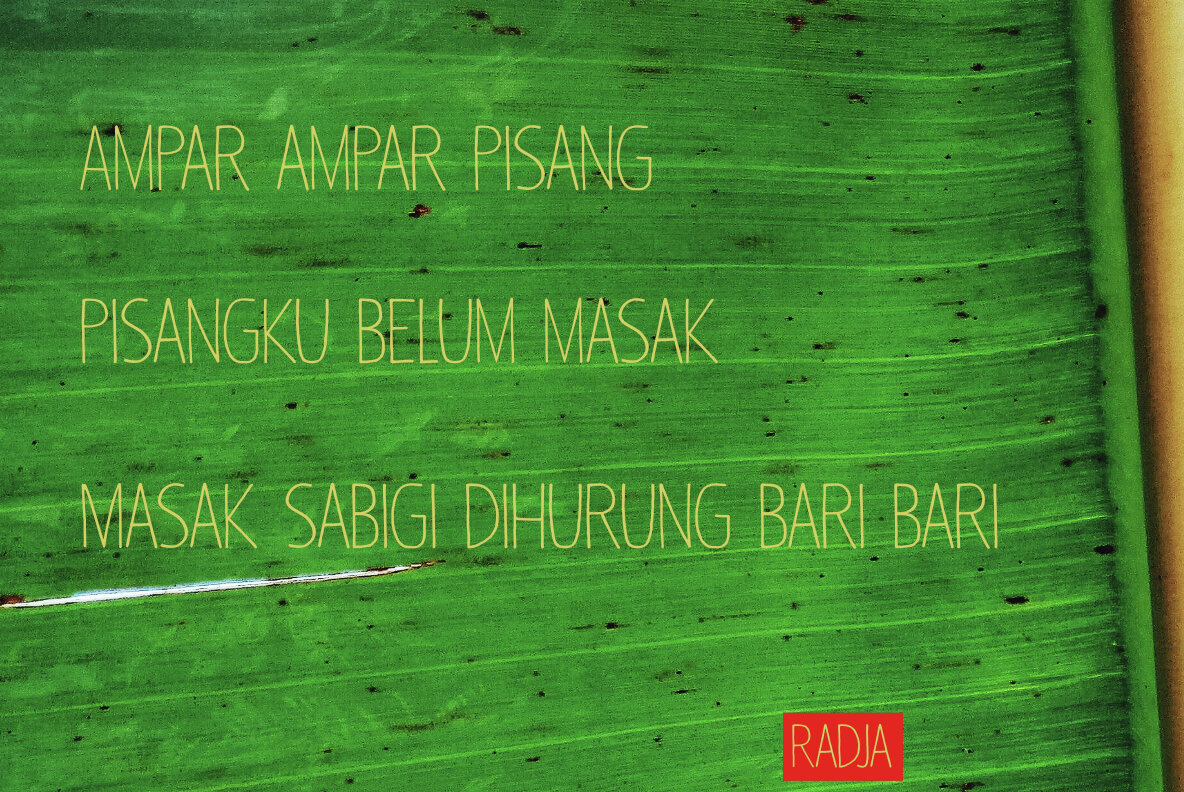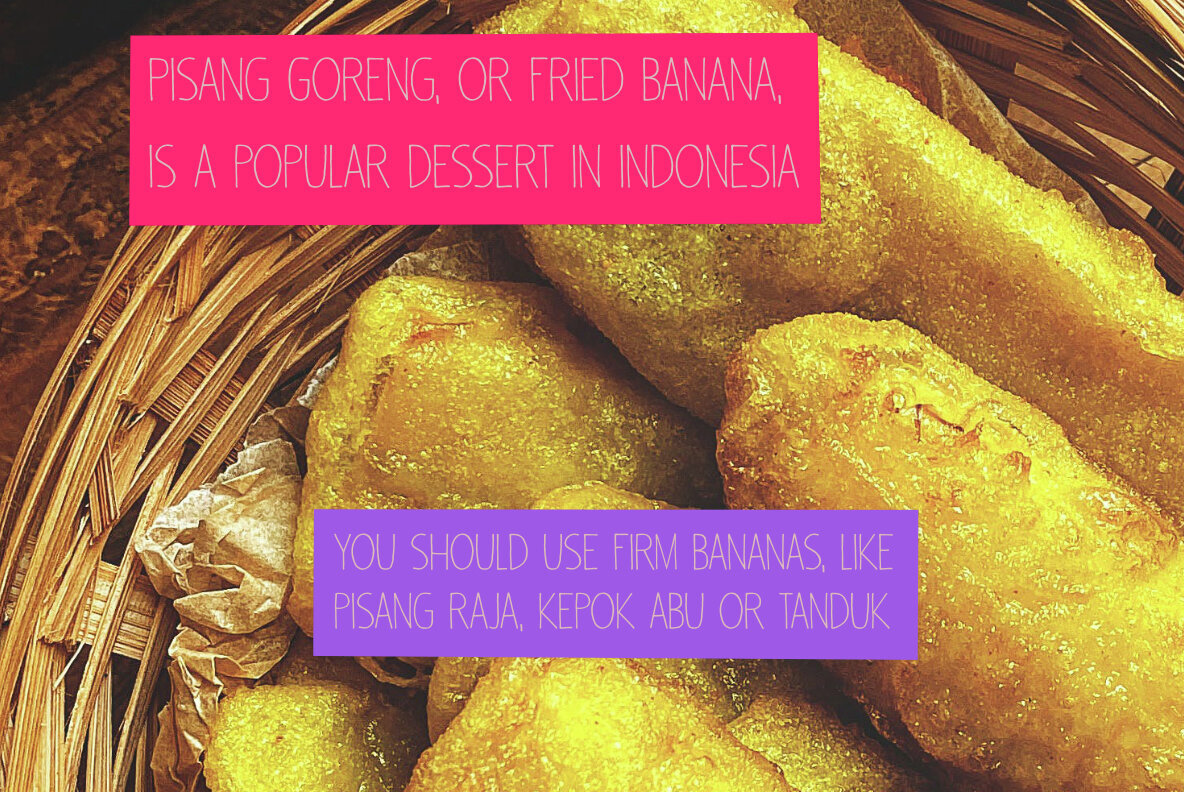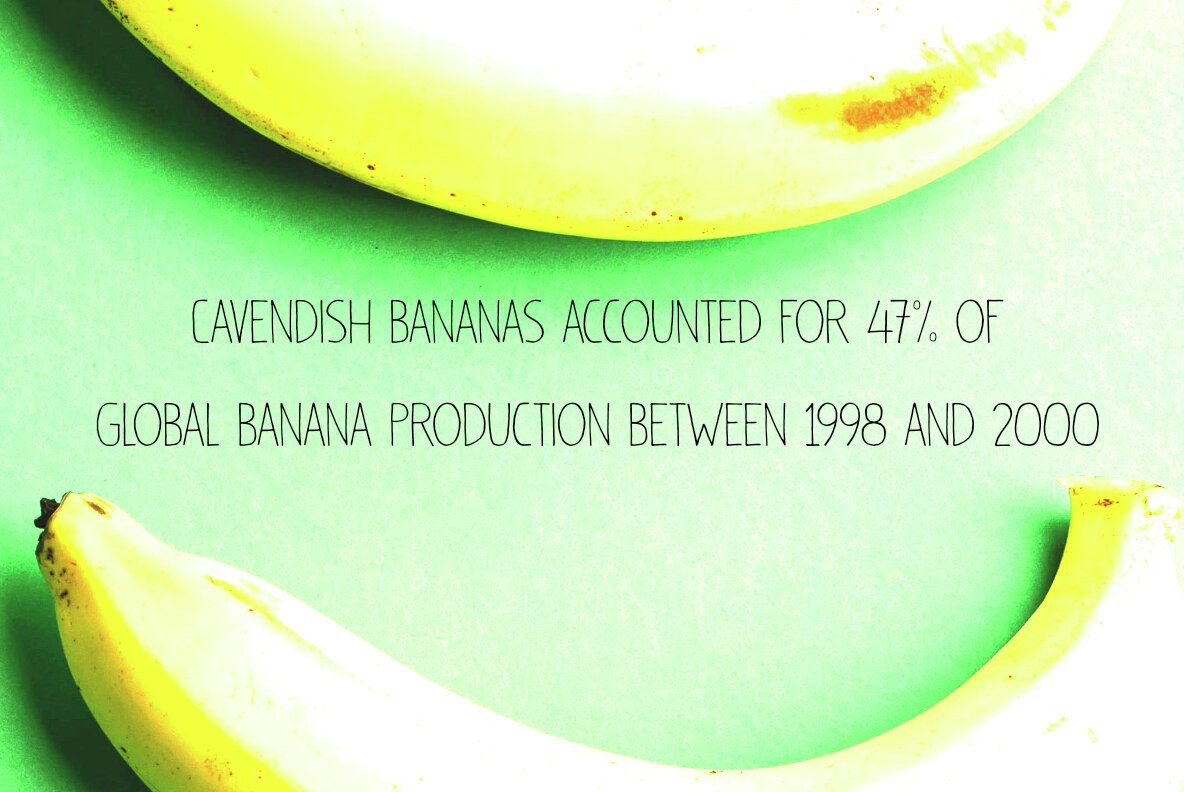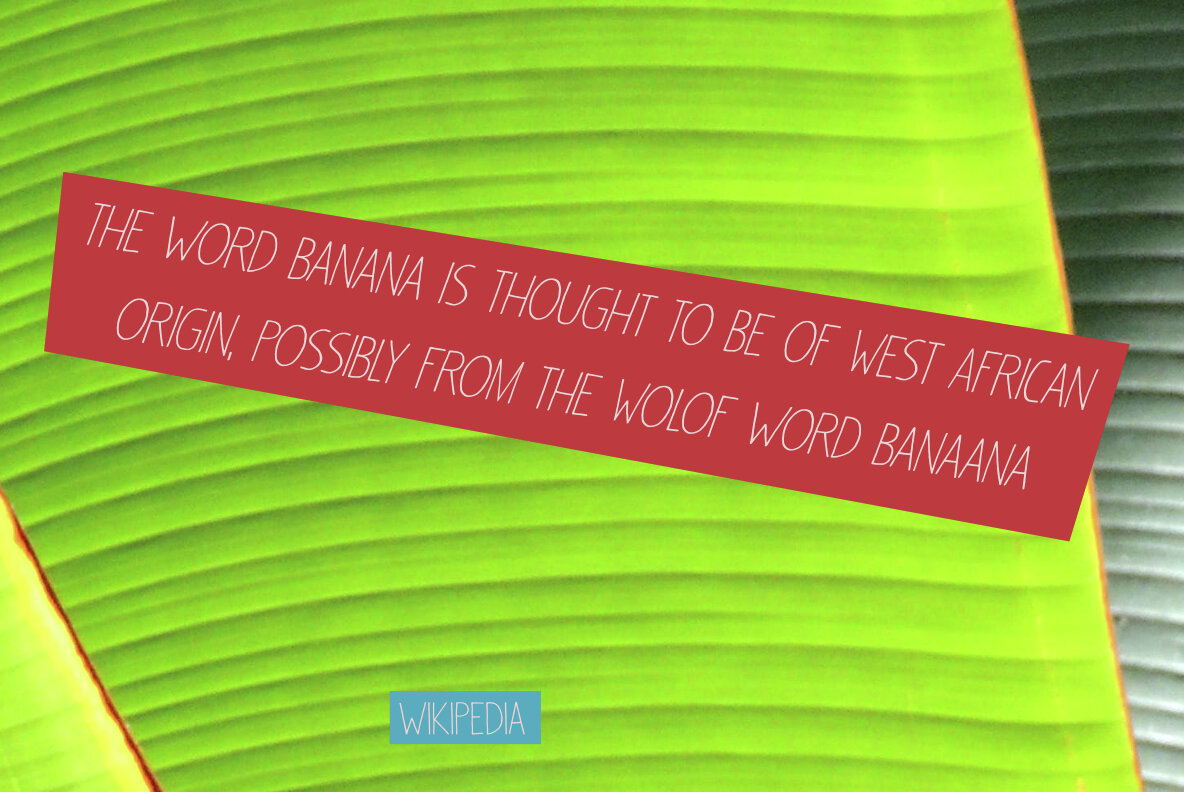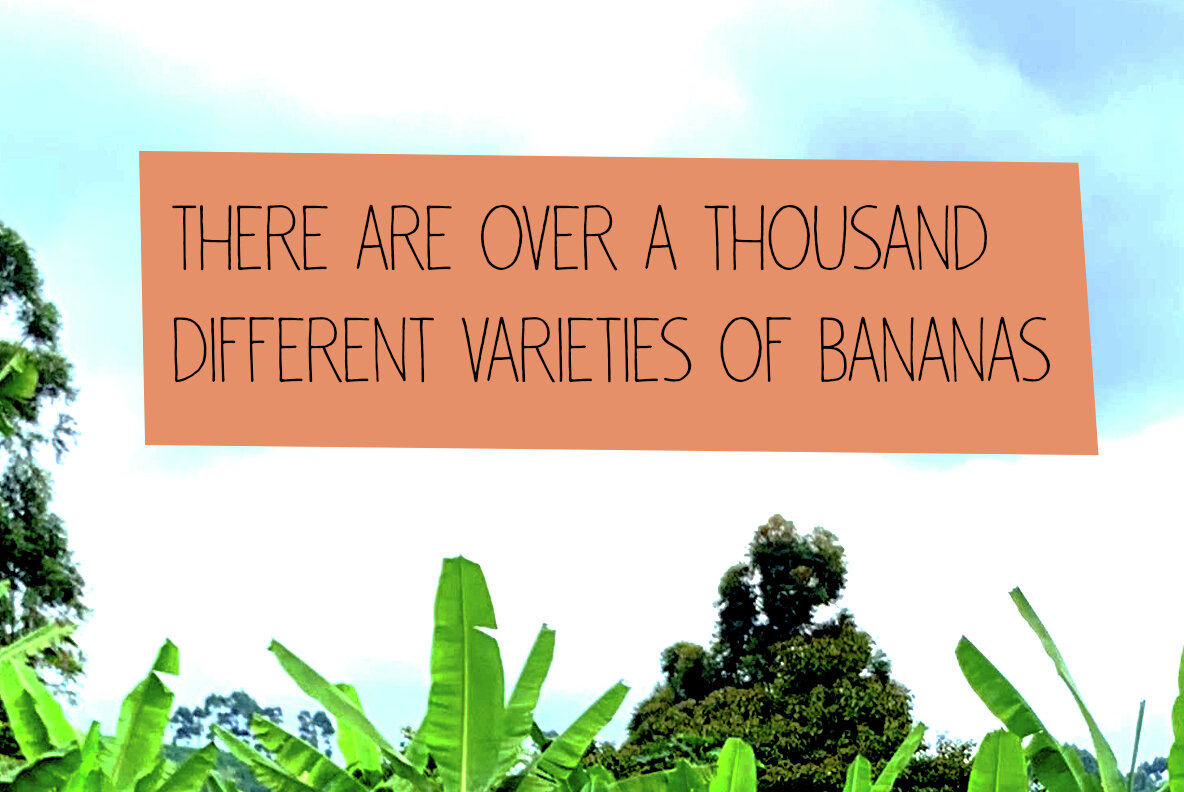
Pisang Manis Font
Pisang Manis Regular
Pisang Manis Italic
Pisang Manis translates to ‘sweet banana’ in Bahasa Indonesia. While this delightful combination may not be commonly used in everyday language, it certainly adds a nice touch. Pisang Manis is a fresh take on an older font called Pisang, which was originally created in 2013. Although it resembles its predecessor, Pisang Manis stands out as a distinct font. Pisang Manis is a ‘Tall & Thin’ display font, making it ideal for a variety of projects. It is perfect for enhancing product packaging, attracting attention on websites, and creating striking book covers.Pisang Manis: An Elegant Display Font